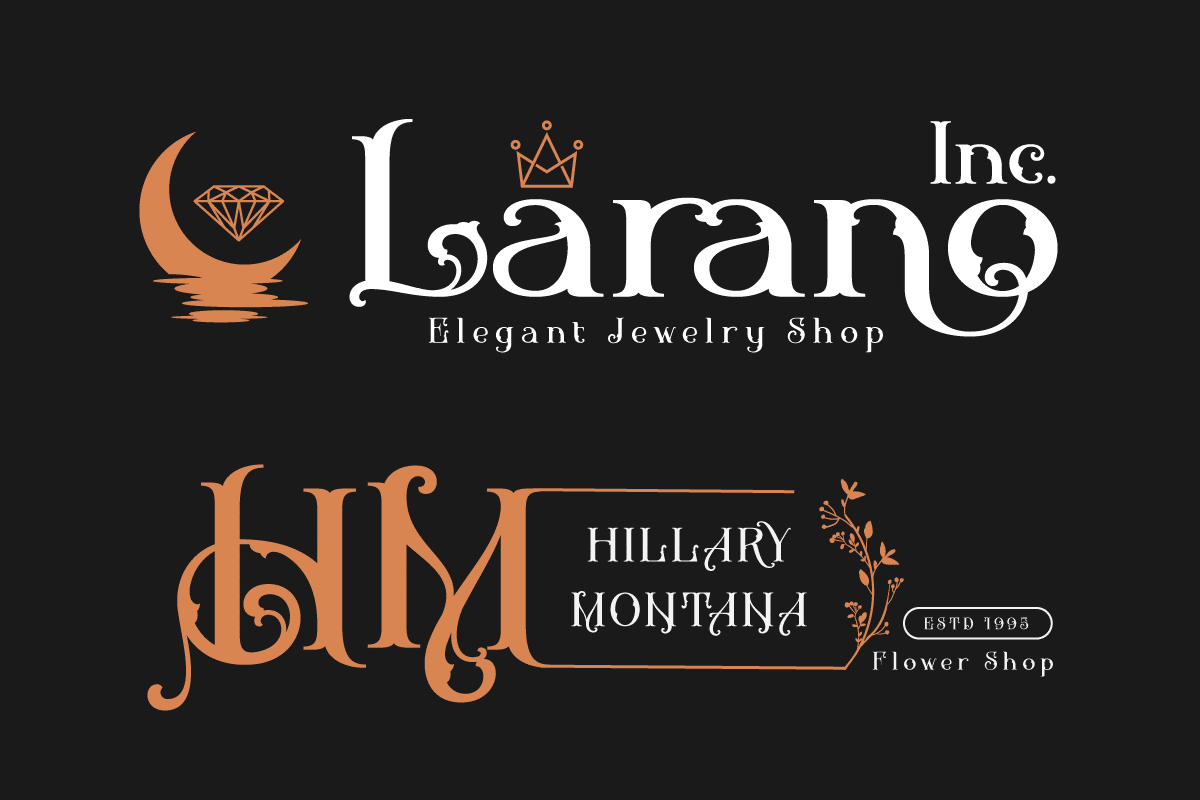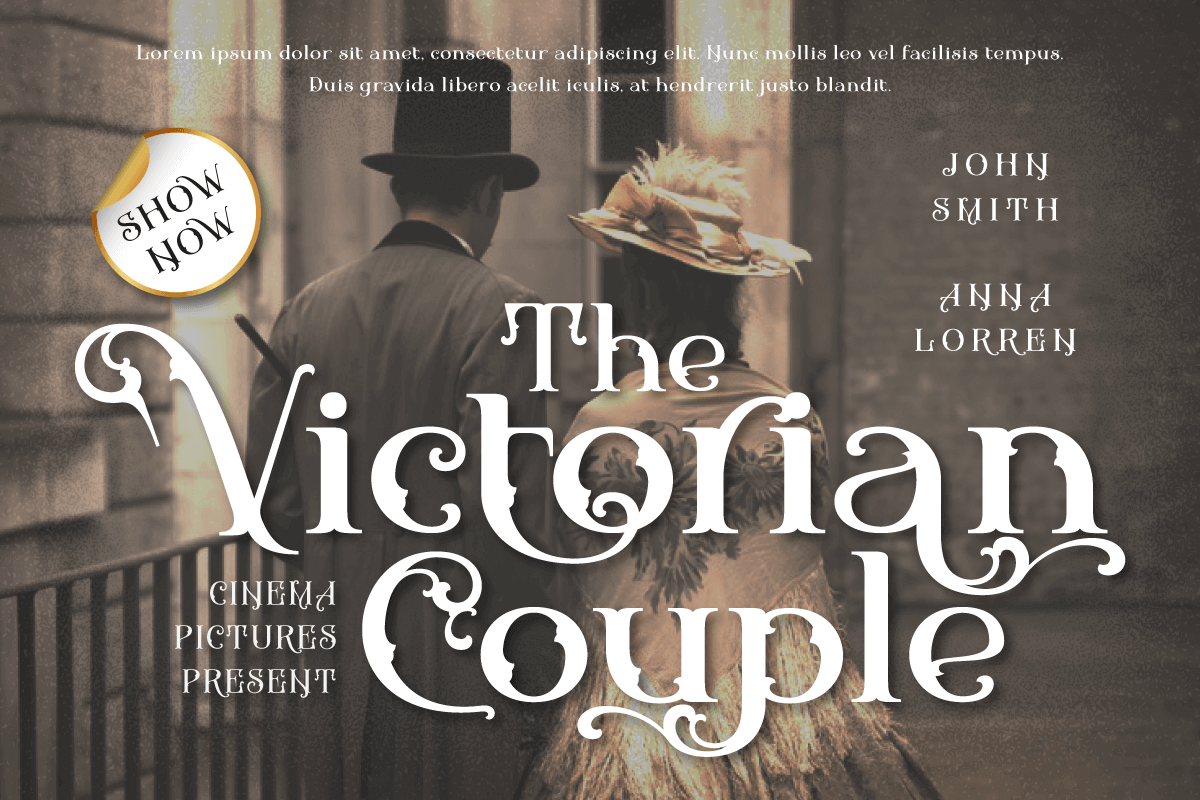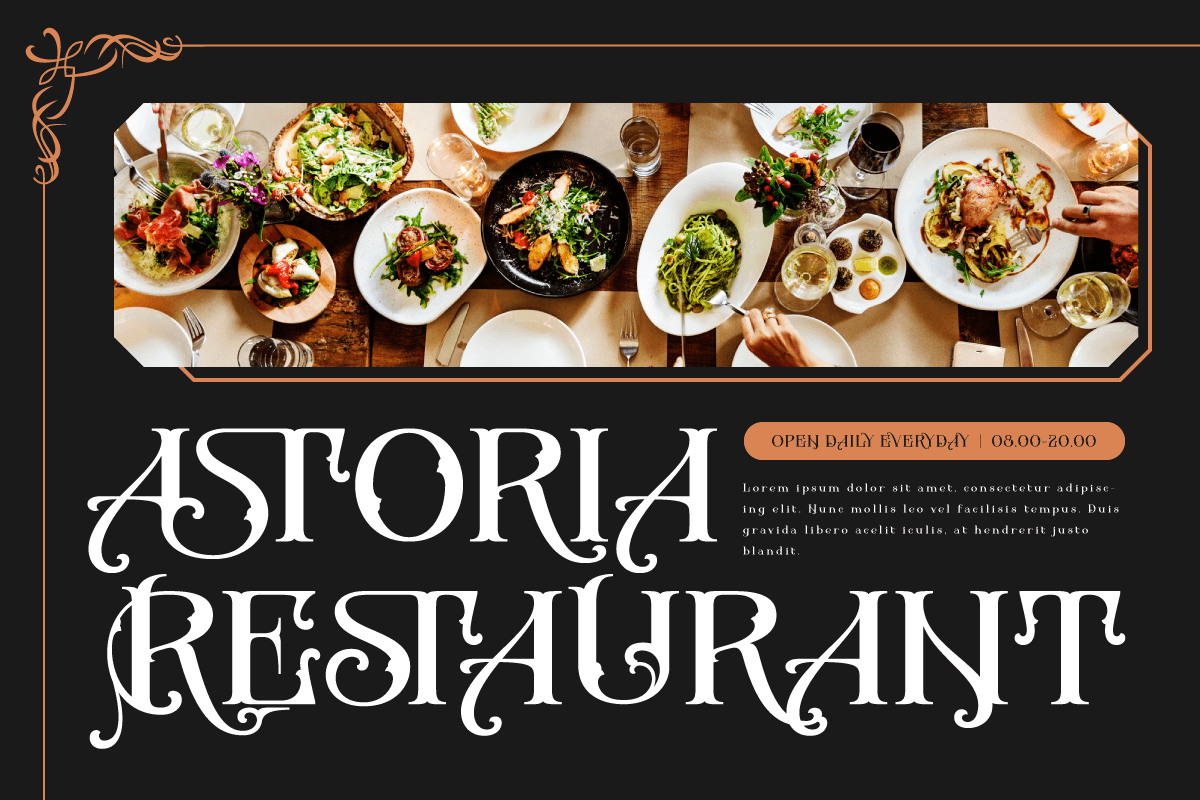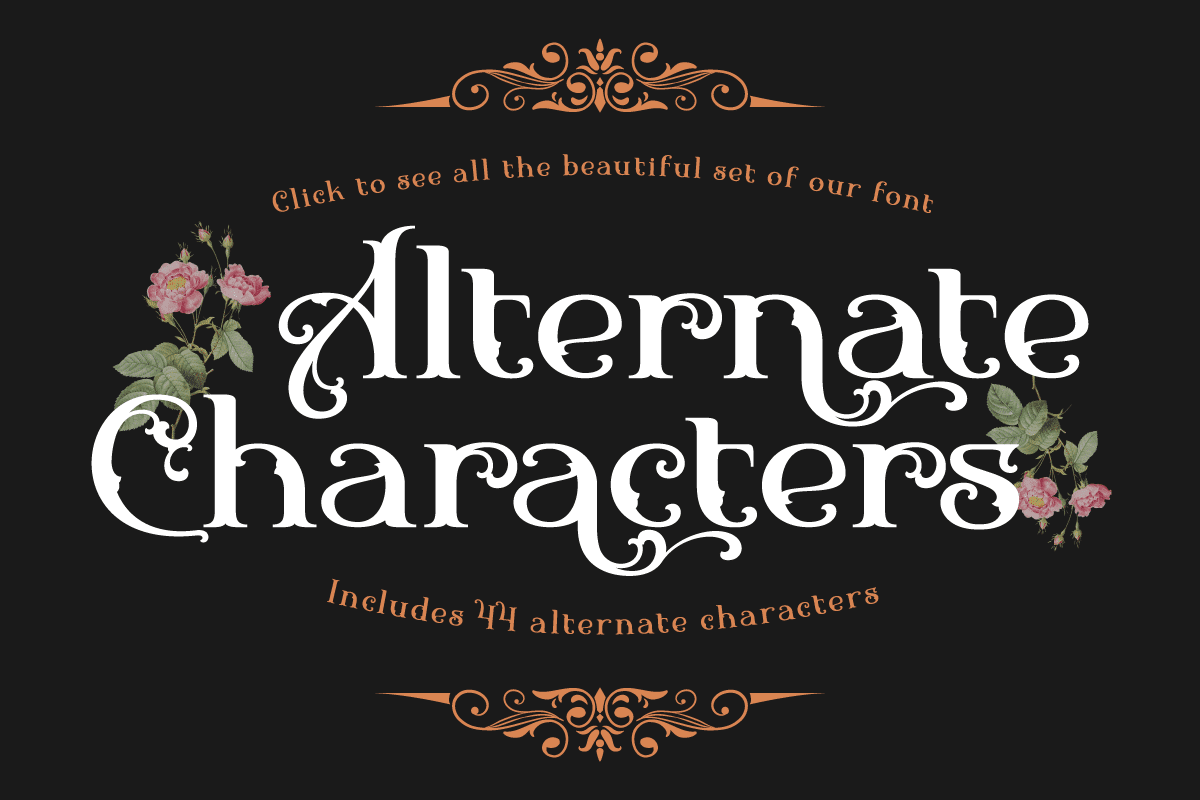
Bifaser Victorian Font
Bifaser, the classic Victorian font that will bring the era’s mesmerizing beauty to your design projects! With an elegant and classy classic Victorian theme, this font is the perfect choice to bring a strong and alluring black letter feel to each creation. Biphaser perfectly describes the elegance and splendor of the classic Victorian typography style. Each letter has exquisite detailing and well-proportioned composition, creating a sophisticated and classy impression. In every project, Bifaser is able to exude the enchanting power and charm of black letters.